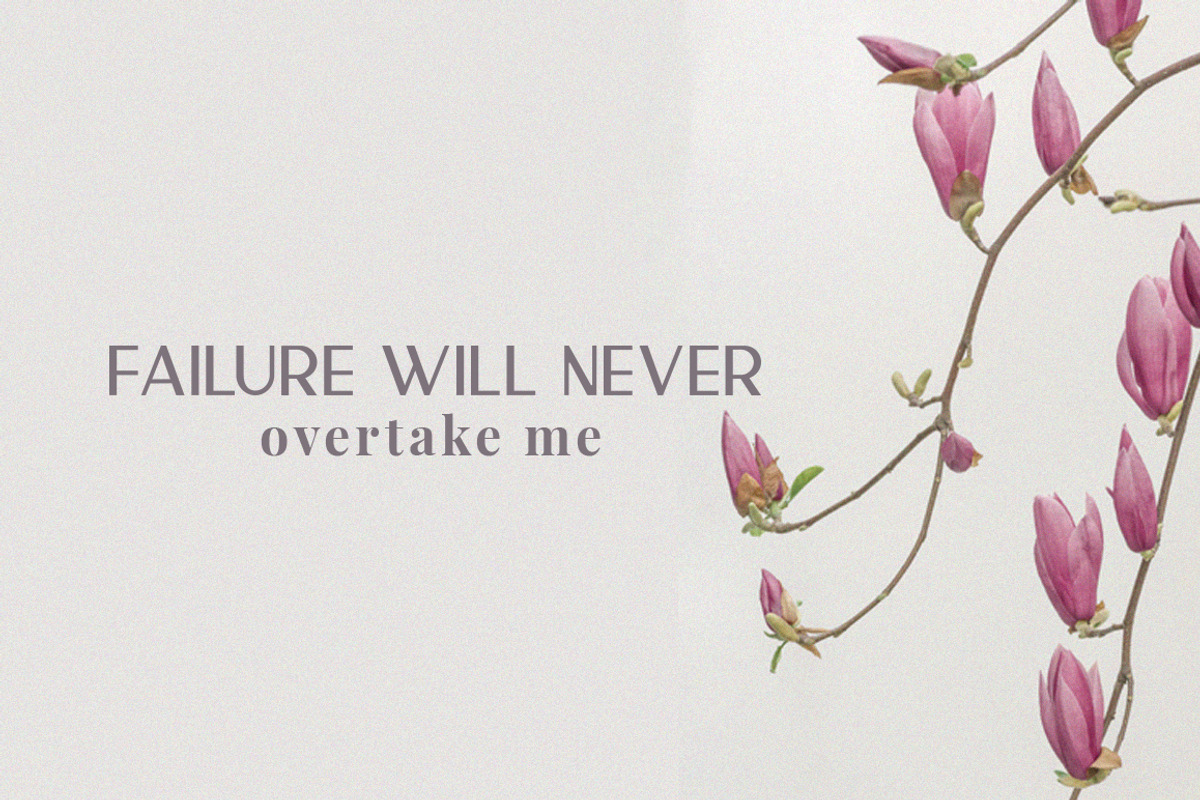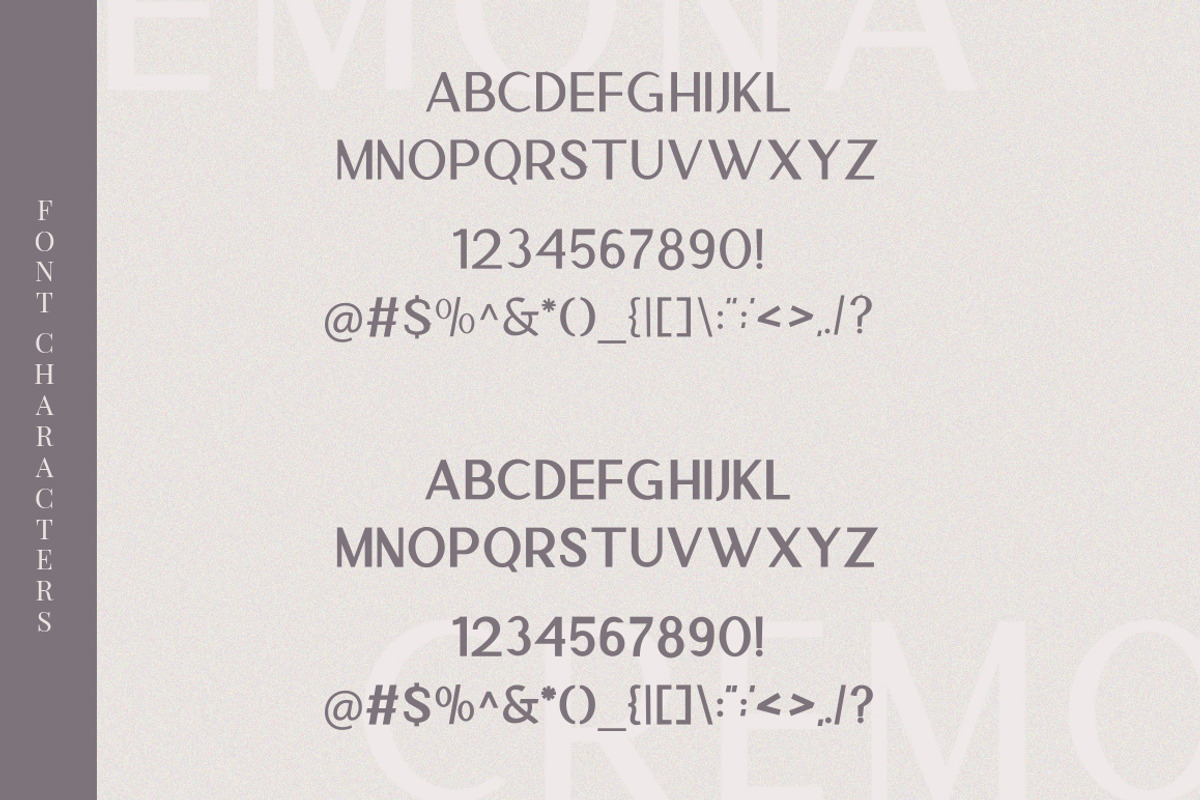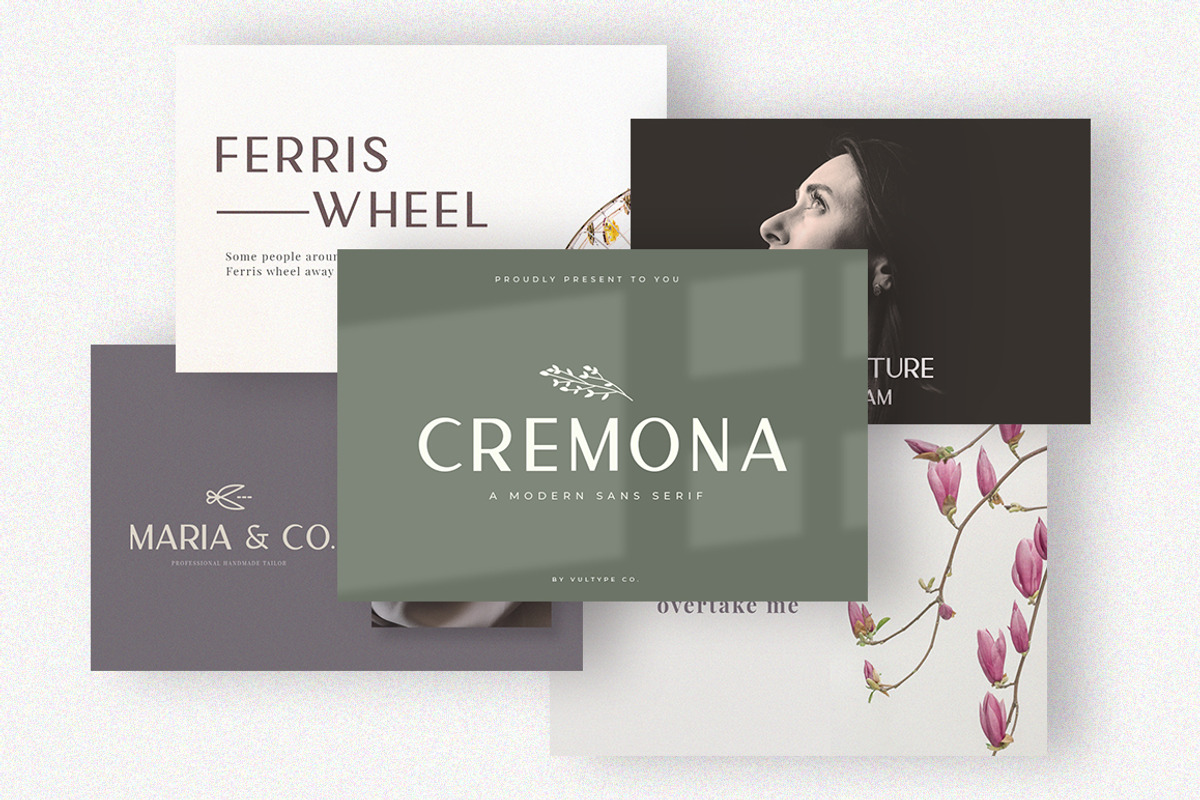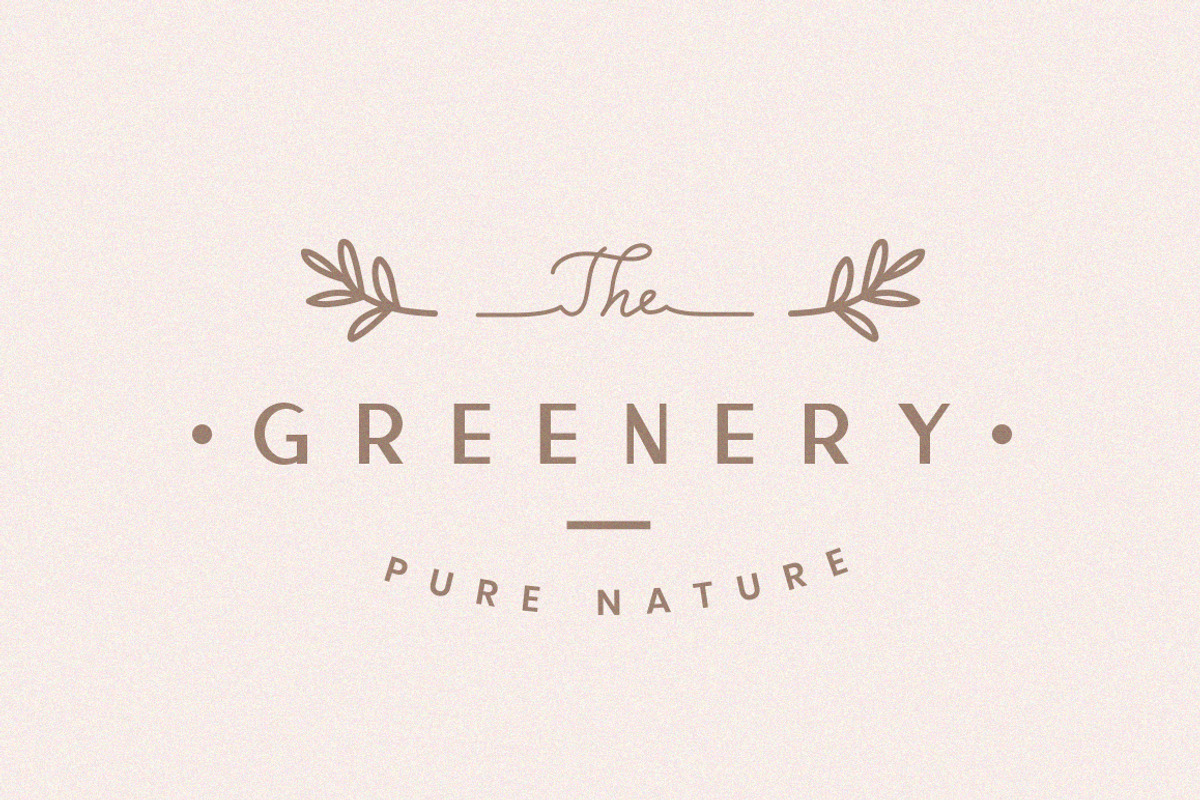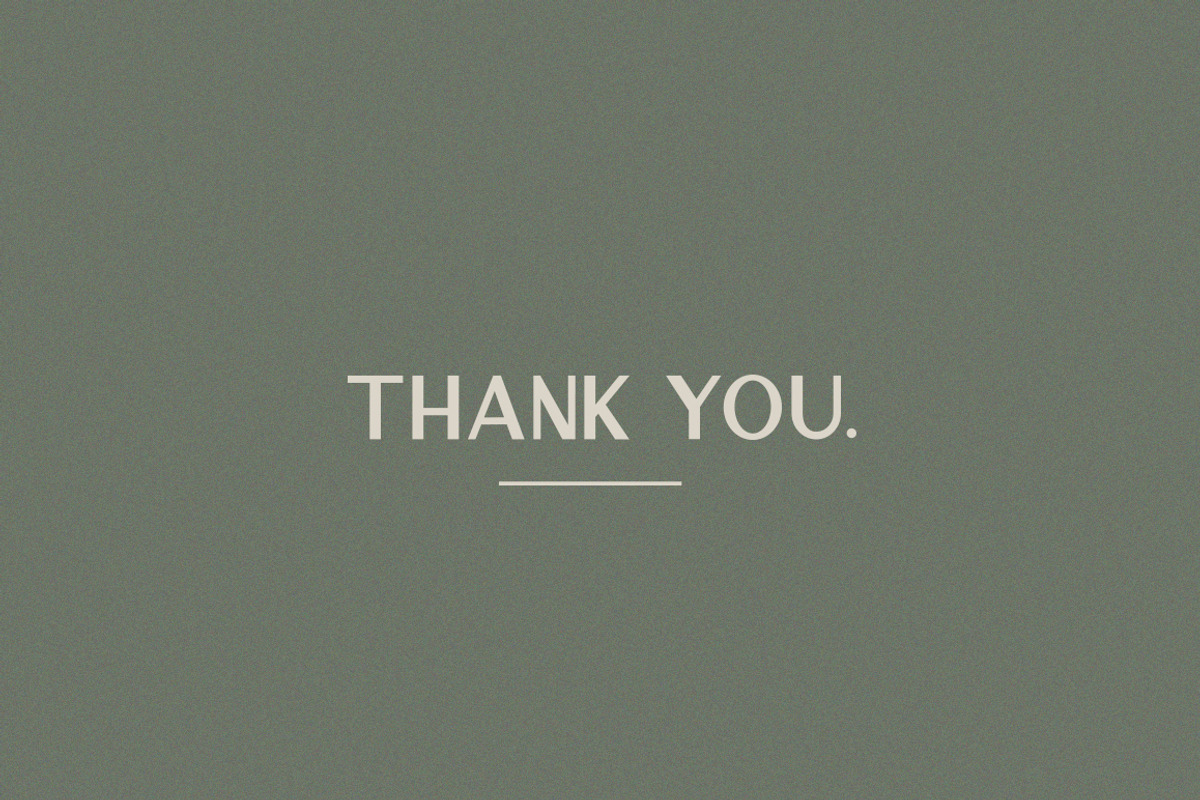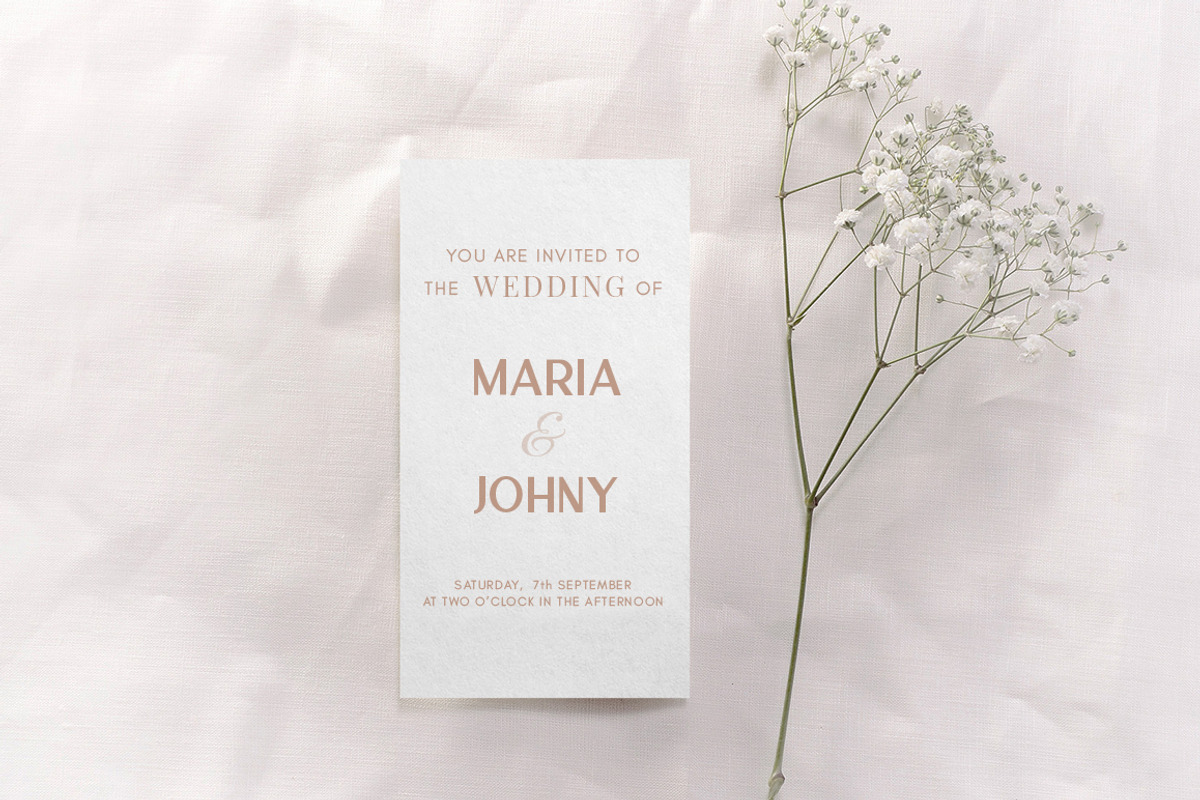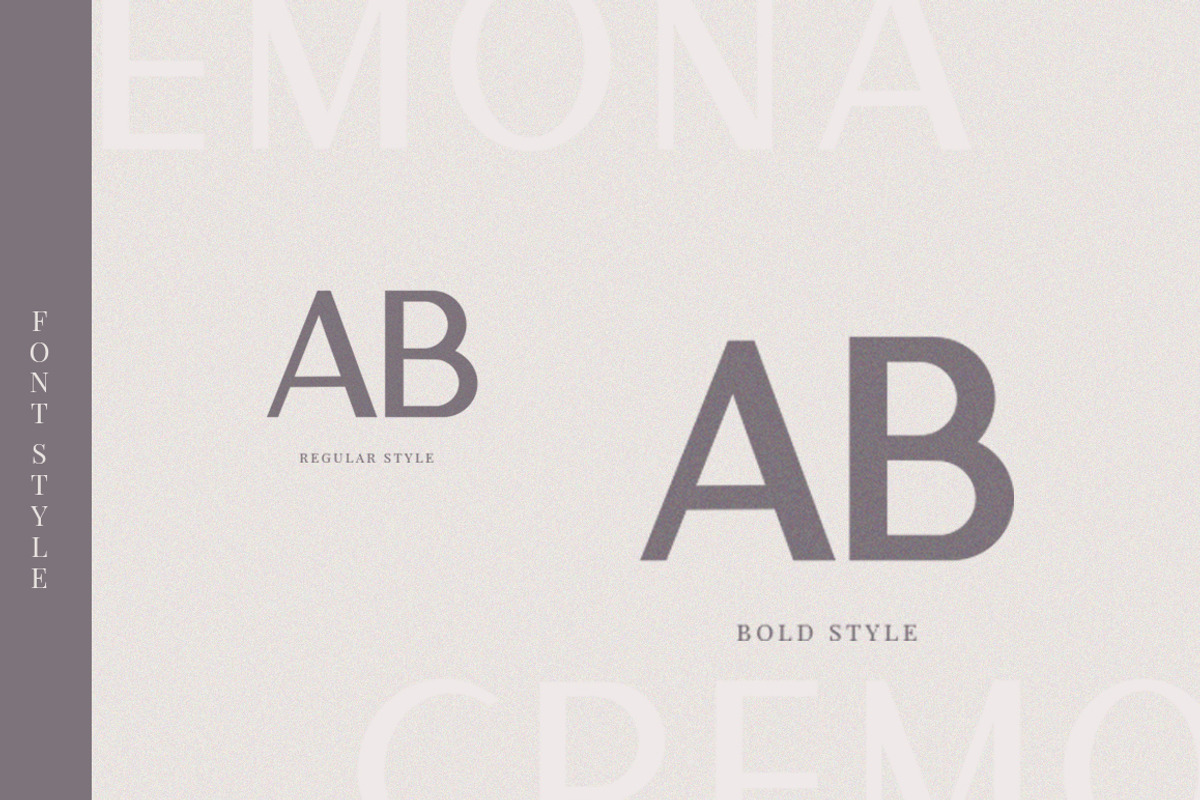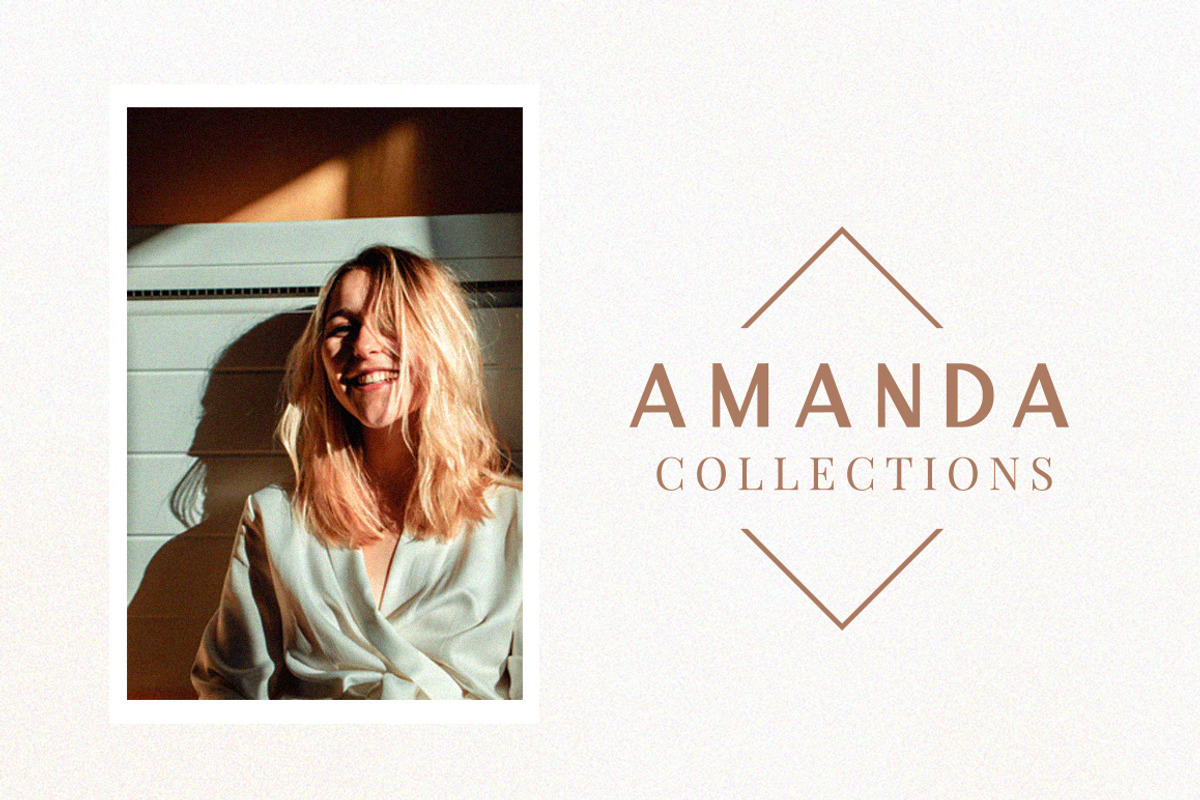
Cremona - Minimal Sans Serif
Say Hello To Cremona Font – is a clean & minimal sans serif font family, makes your design clean.
Cremona includes two all-caps fonts: Cremona -Regular, Cremona -Bold. It can be perfect for presentations, magazines, notices, titles, magazine, web layouts, logos, invitations, headers, name card, branding and other any business related.
- Cremona Regular
- Cremona Bold
- A-Z & a-z
- Accents (Multilingual characters) (AÀÁÂÃÄÅCÇDÐEÈÉÊËIÌÍÎÏNÑOØÒÓÔÕÖUÙÜÚÛWYÝŸỲŸÆŒßÞ)